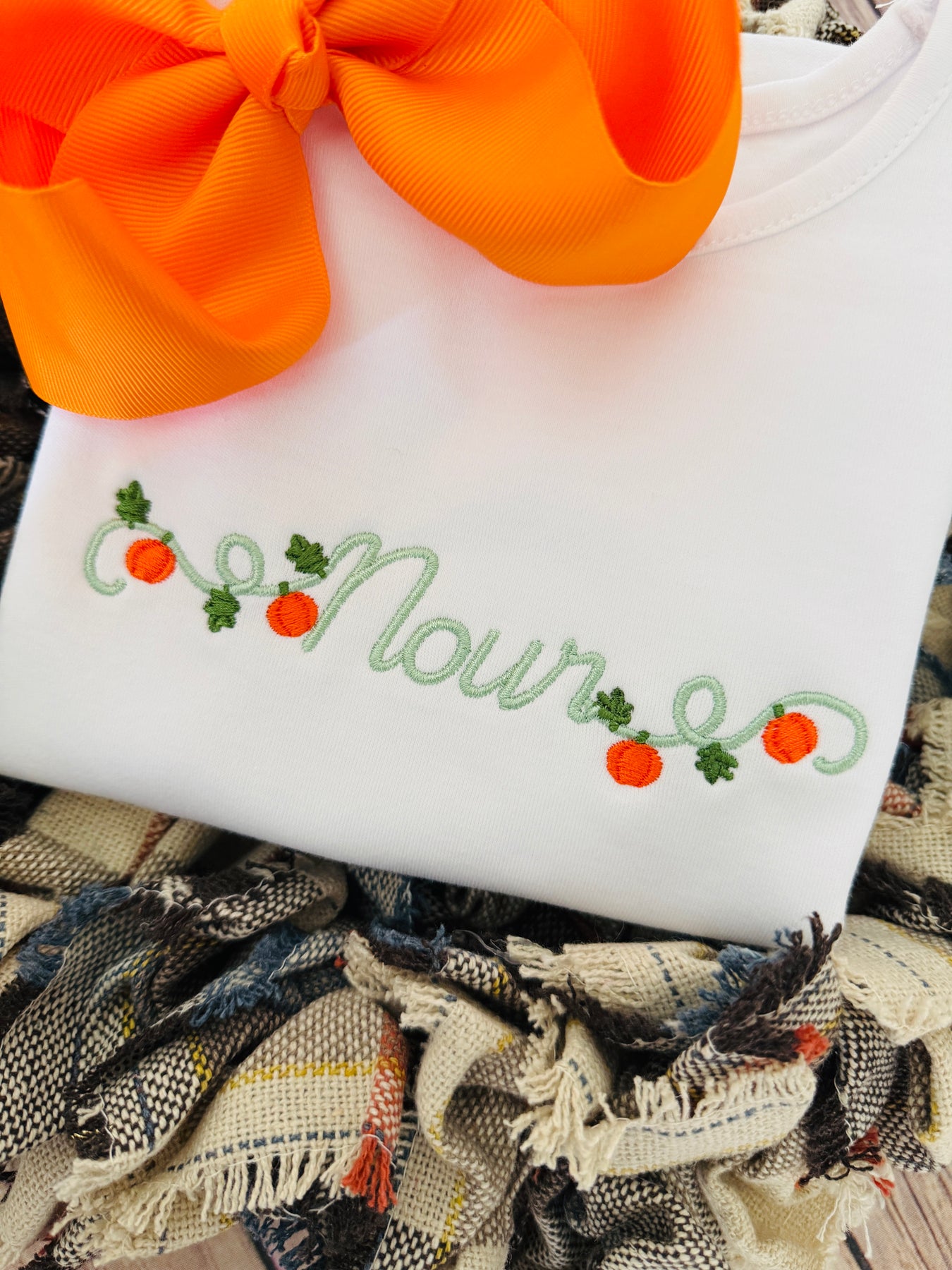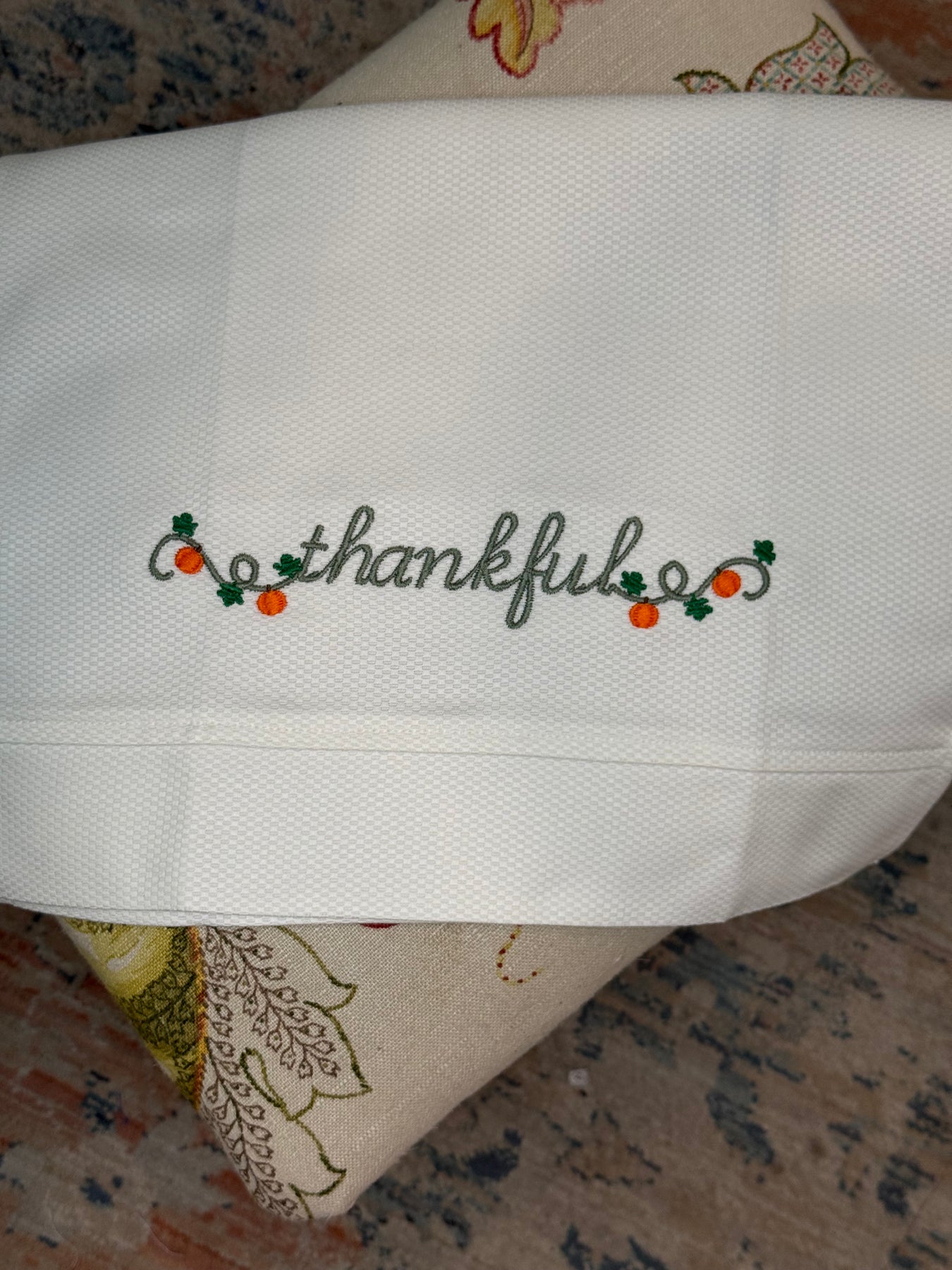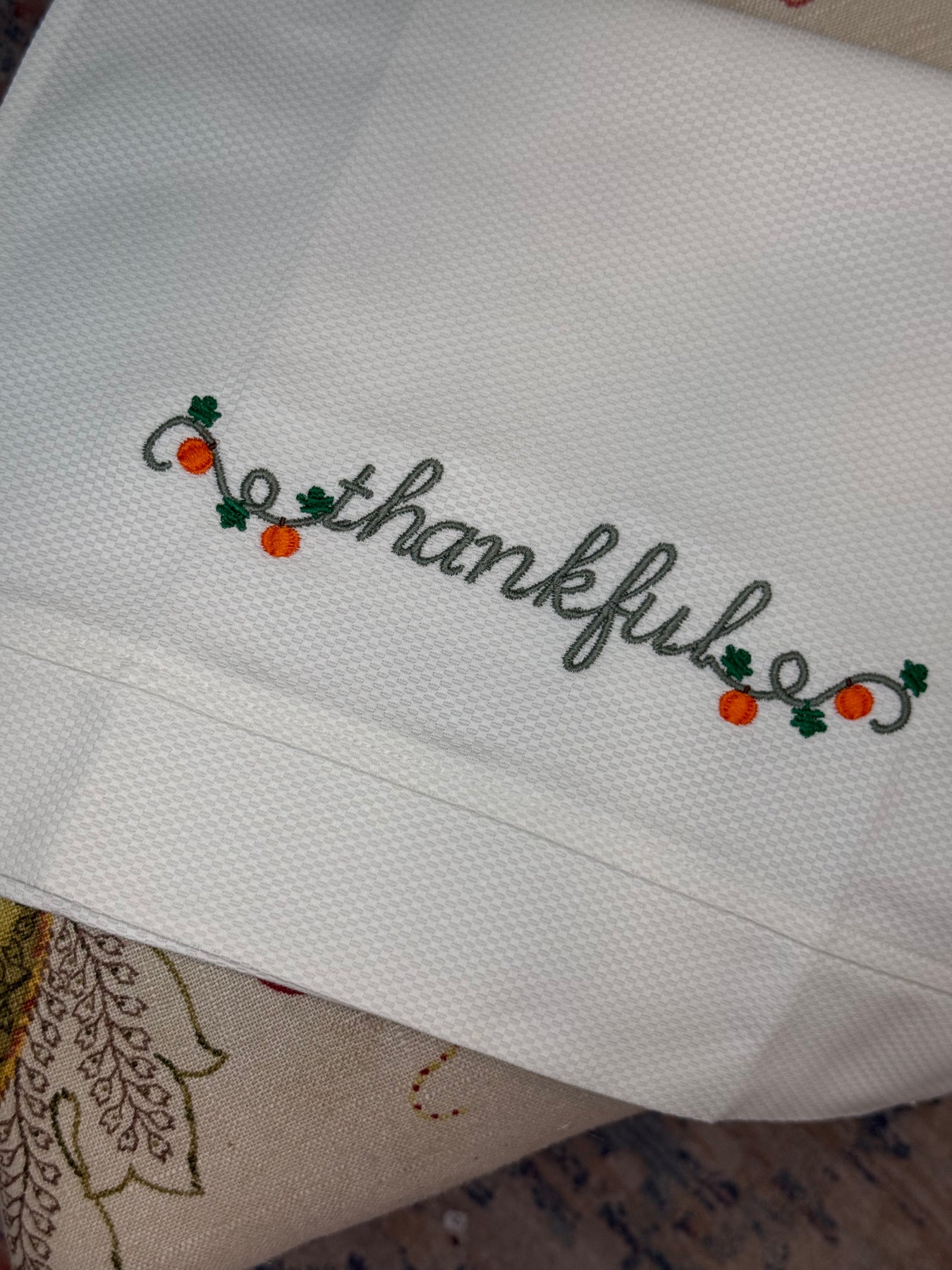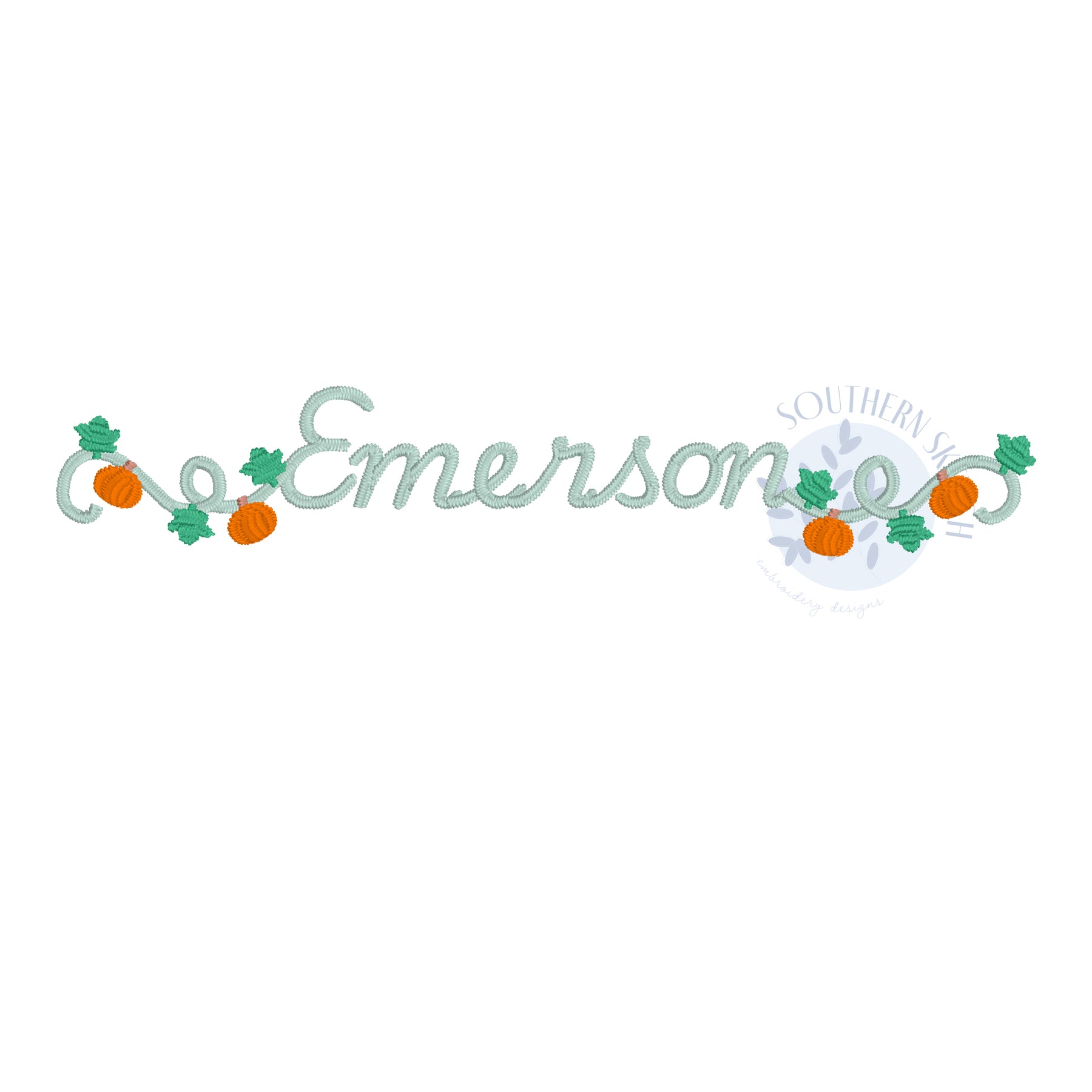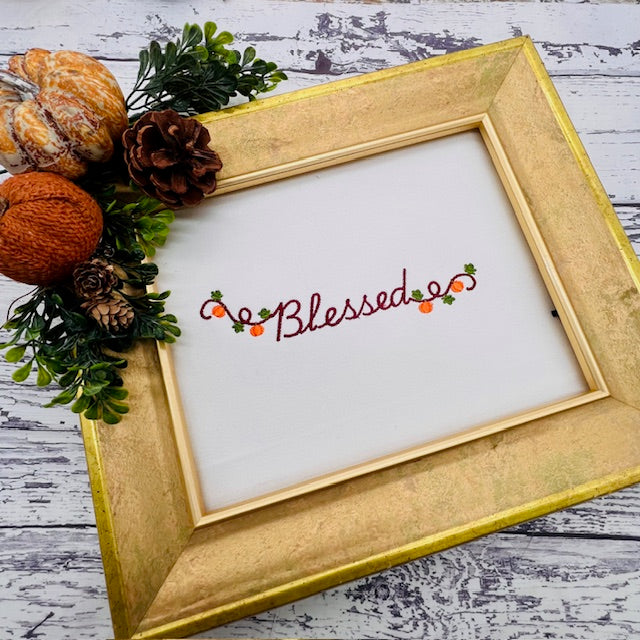
Emerson Satin Stitch Font
Emerson is a fine satin stitch that comes in 4 sizes as well as right and left pumpkin vine swatches to beautifully flank her for fall. She is also beautiful on her own for year round use!
Design Type: Embroidery Font
.75”
1”
1.5”
2"